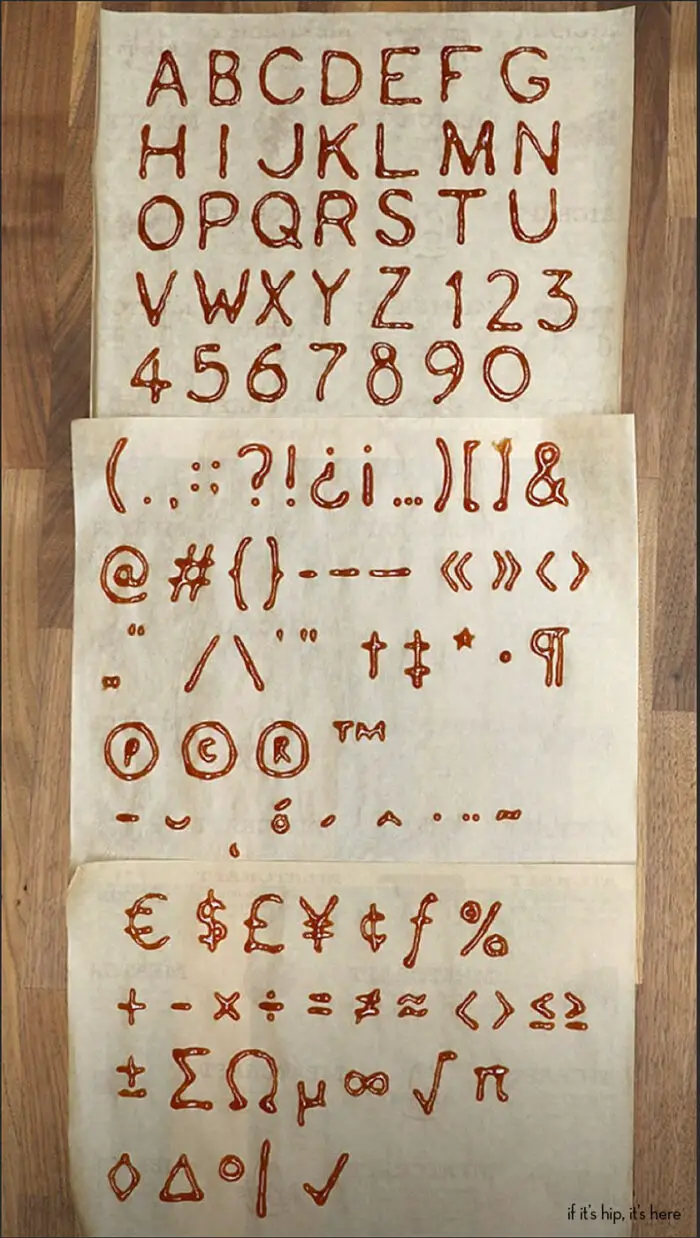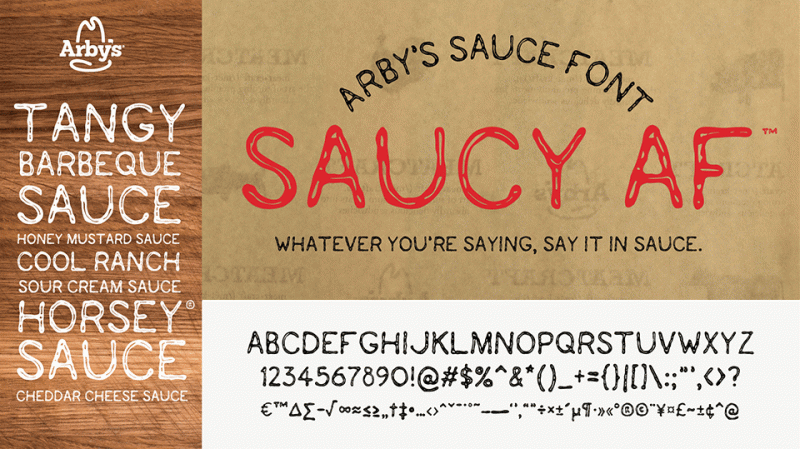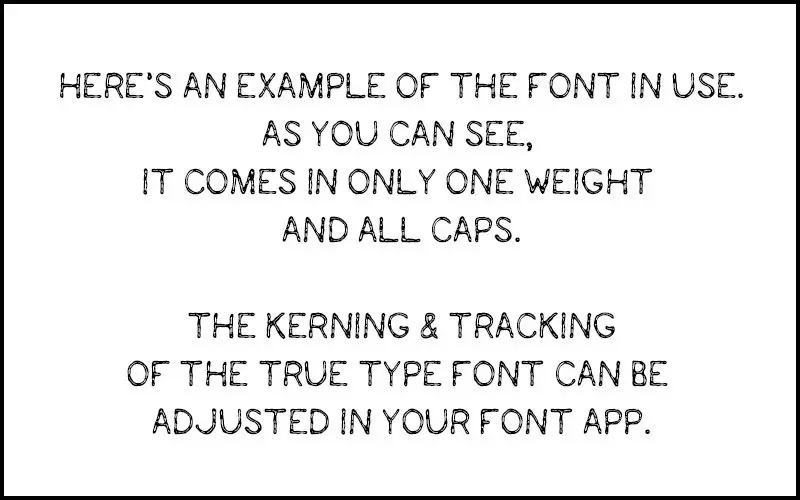
Arby’s Restaurant Group, who has the MOST creative Twitter feed and Instagram Feed in the Fast Food franchise category, has just created a typeface inspired by their very own sauces: The Arby’s Saucy font.
Arby’s Saucy Font
Inspired by the restaurants many sandwich sauces, Arby’s typeface, Saucy AF, is a True Type Font with 236 Glyphs.
The Arby’s Saucy font is an upper case font and includes numbers and characters.
Here’s an example of my using the downloaded font in Photoshop at 36 points with 48 leading and -10 tracking:
Don’t just play with your food– write with it.